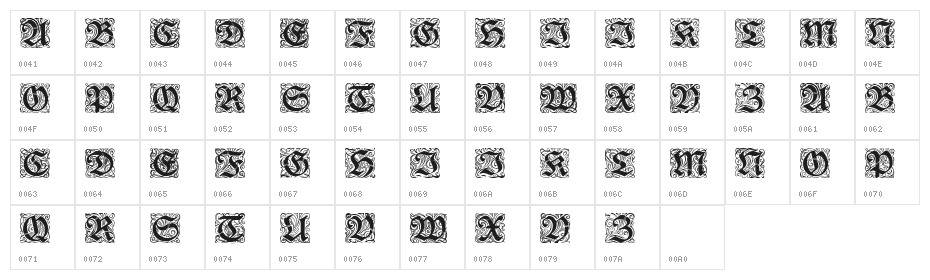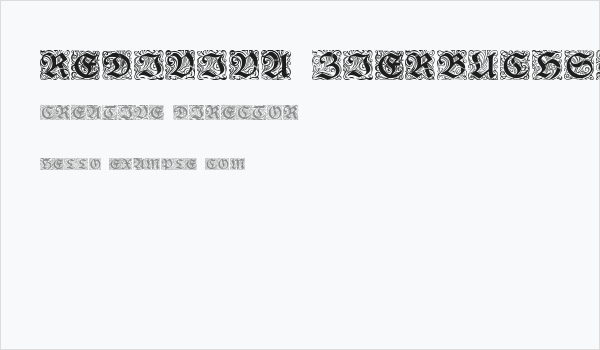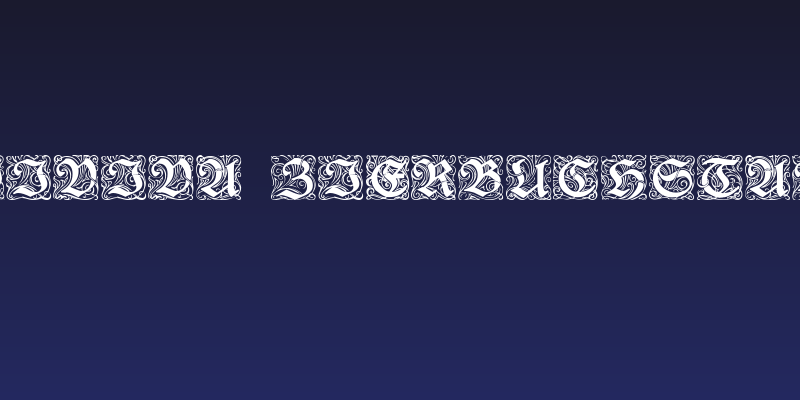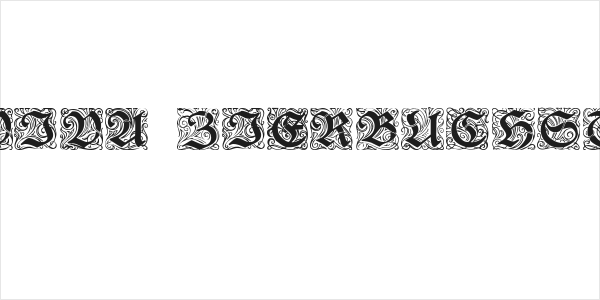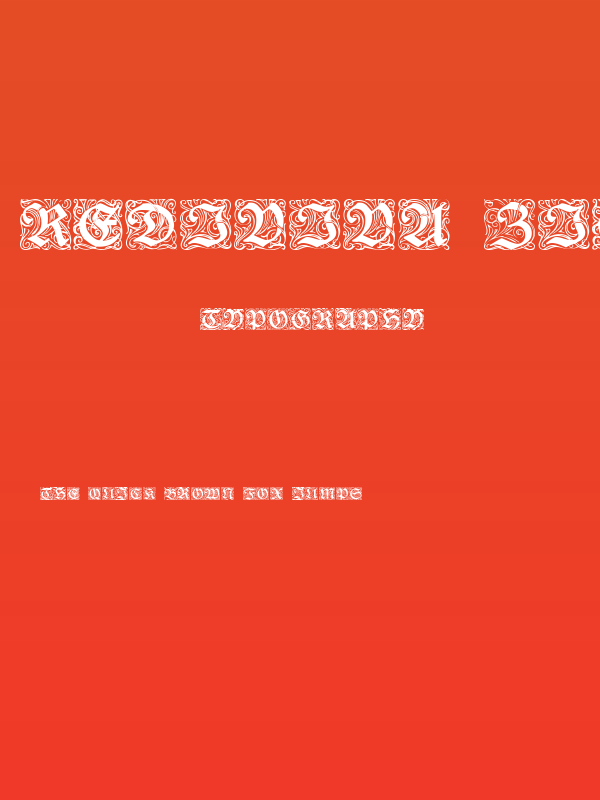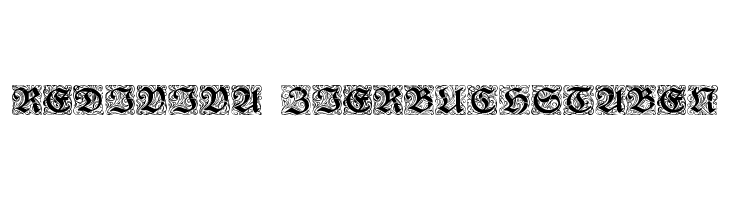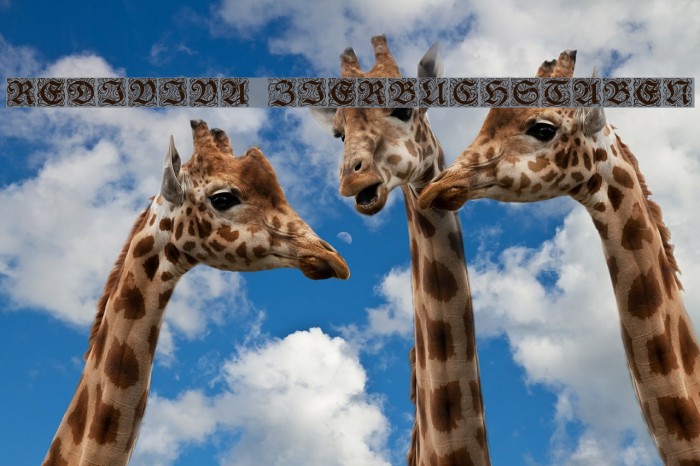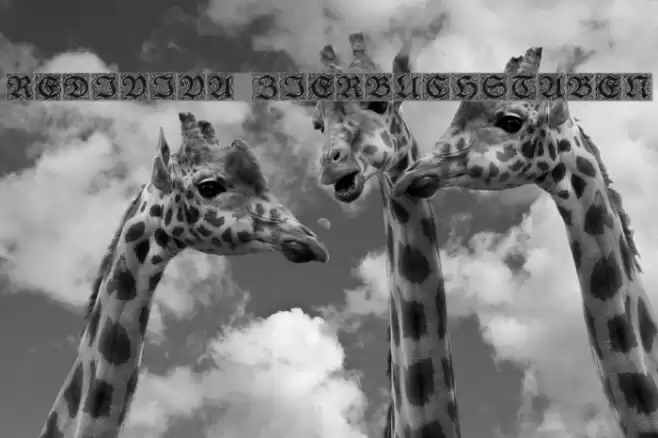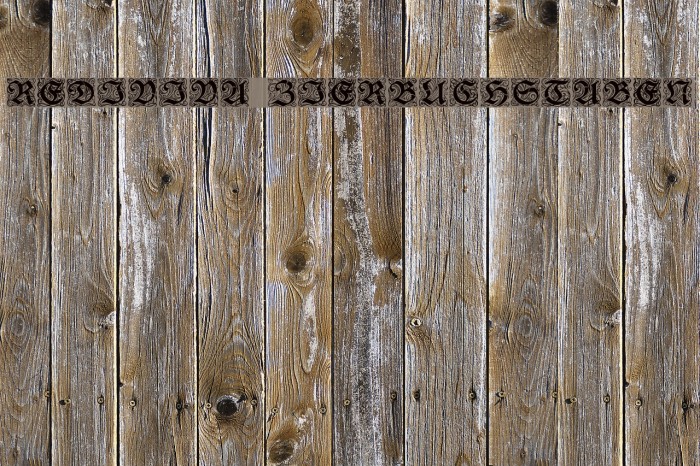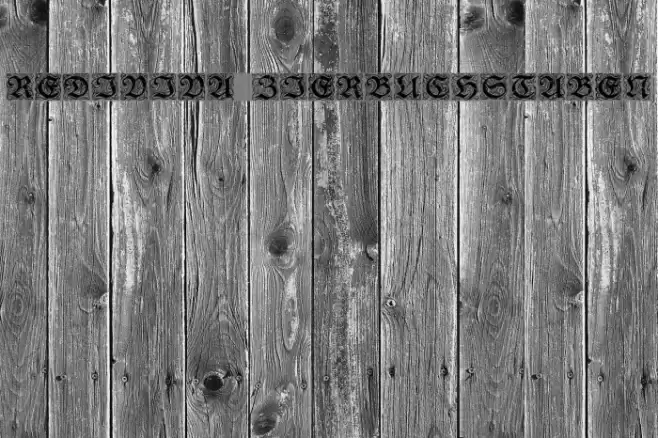
Rediviva Zierbuchstaben Font
Rediviva Zierbuchstaben Description
This font is a highly decorative and intricate typeface that features elaborate embellishments and ornate details. Each character is enclosed within a square frame, filled with swirling, floral-like patterns that give it a rich, textured appearance. The style is reminiscent of medieval manuscripts or illuminated texts, with a strong emphasis on artistic flair and visual complexity. The letters are bold and striking, making them stand out as individual works of art. This font is not designed for readability in large blocks of text but rather for decorative purposes where visual impact is paramount.
| Overall Style | Vintage |
| Use Case | Logos, Headlines, Decorative elements |
| Proposed Projects | Ideal for projects requiring a historical or artistic touch, such as invitations, certificates, book covers, or branding for luxury products. |